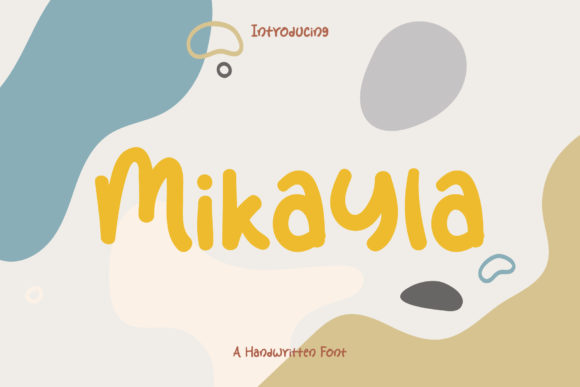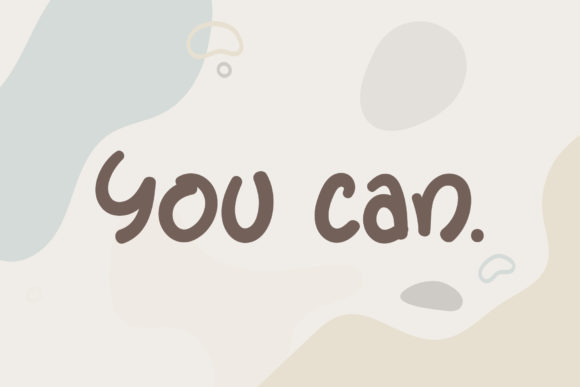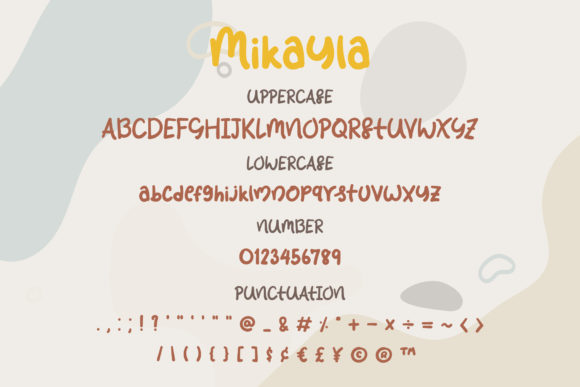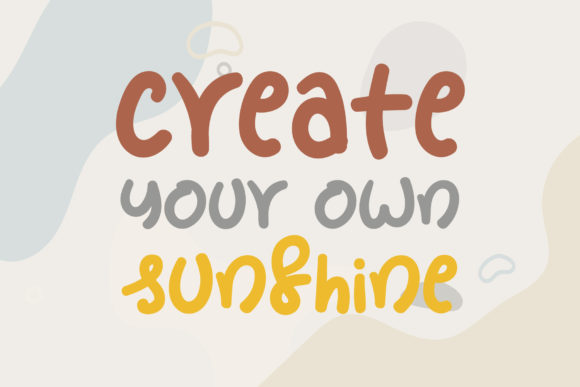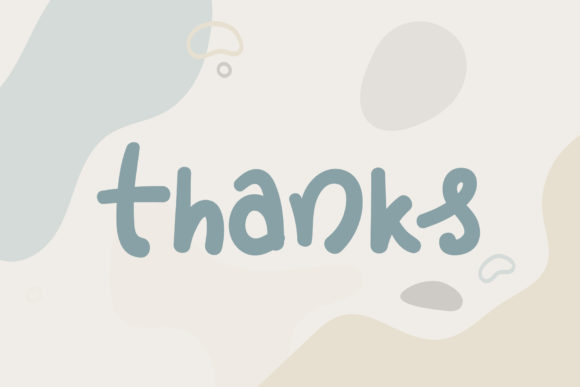
Mikayla Font
About Mikayla Font
Mikayla is a sweet and versatile handwritten font, carefully handcrafted to become a true favorite. Get inspired by its authentic feel and use it to create gorgeous wedding invitations, beautiful stationary art, eye-catching social media posts, and cute greeting cards.